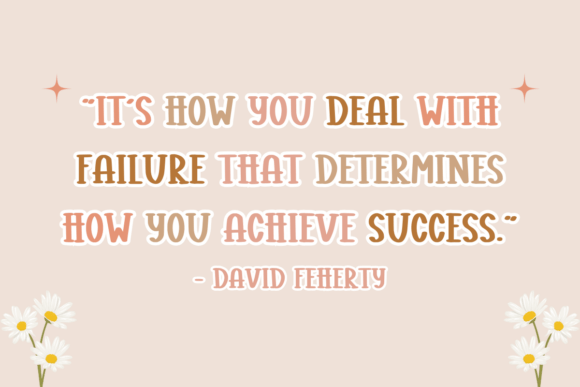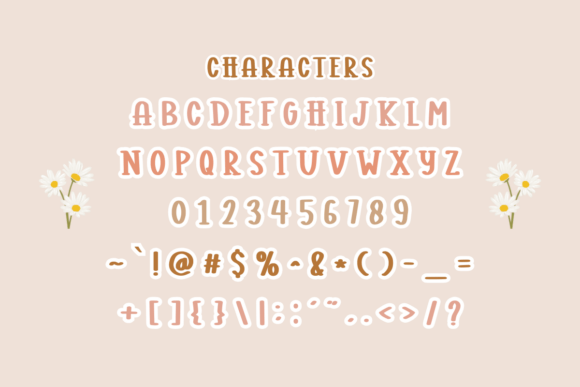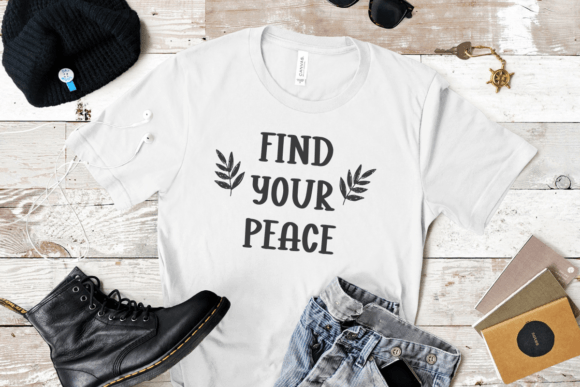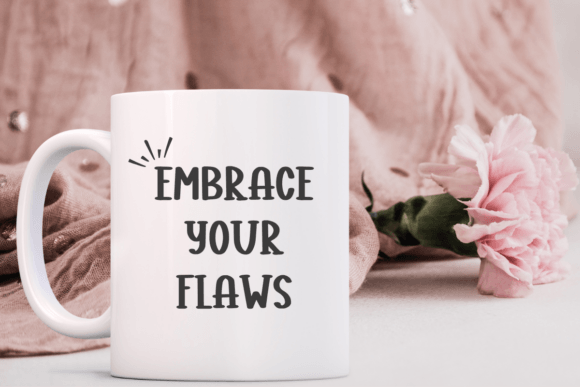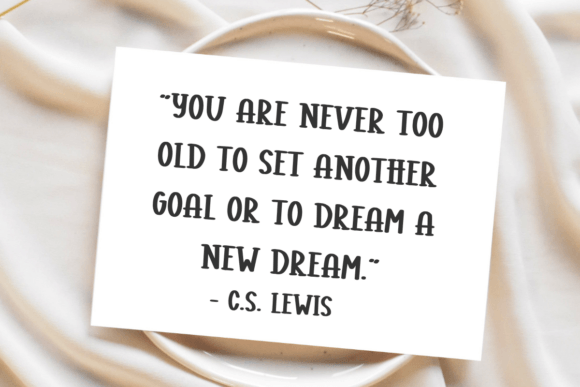
Introduction to Pine Display Font
Introducing Pine Display, an endearing handwritten sans serif font radiating playful charm.
Lending an inviting warmth to memos, journals, and notes, Pine Display adapts harmoniously to both physical and digital mediums Perfect for organizing your days in planners or to-do lists, it adds an element of fun to mundane tasks.